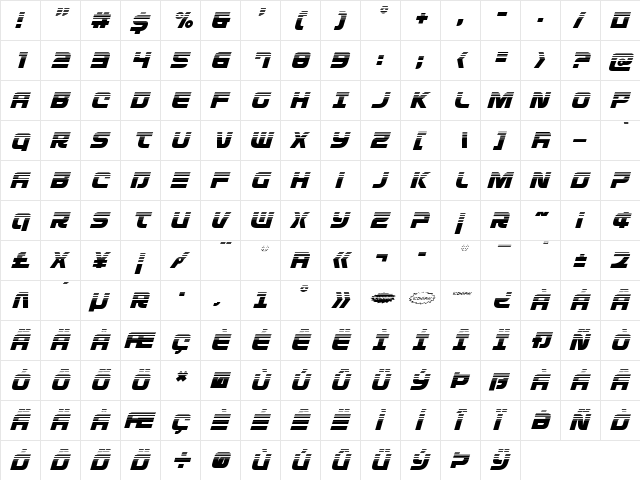
Defcon Zero Halftone Italic Italic
Design Context for Defcon Zero Halftone Italic Typeface
Defcon Zero Halftone Italic is a composed and adaptable typeface that performs quietly and consistently across a wide range of design contexts. Its italic angle brings a sense of urgency and motion to the letterforms.
Pro Tip: Try Defcon Zero Halftone Italic for annotation and caption copy alongside an upright companion — the contrast in angle creates a dynamic but ordered typographic system.